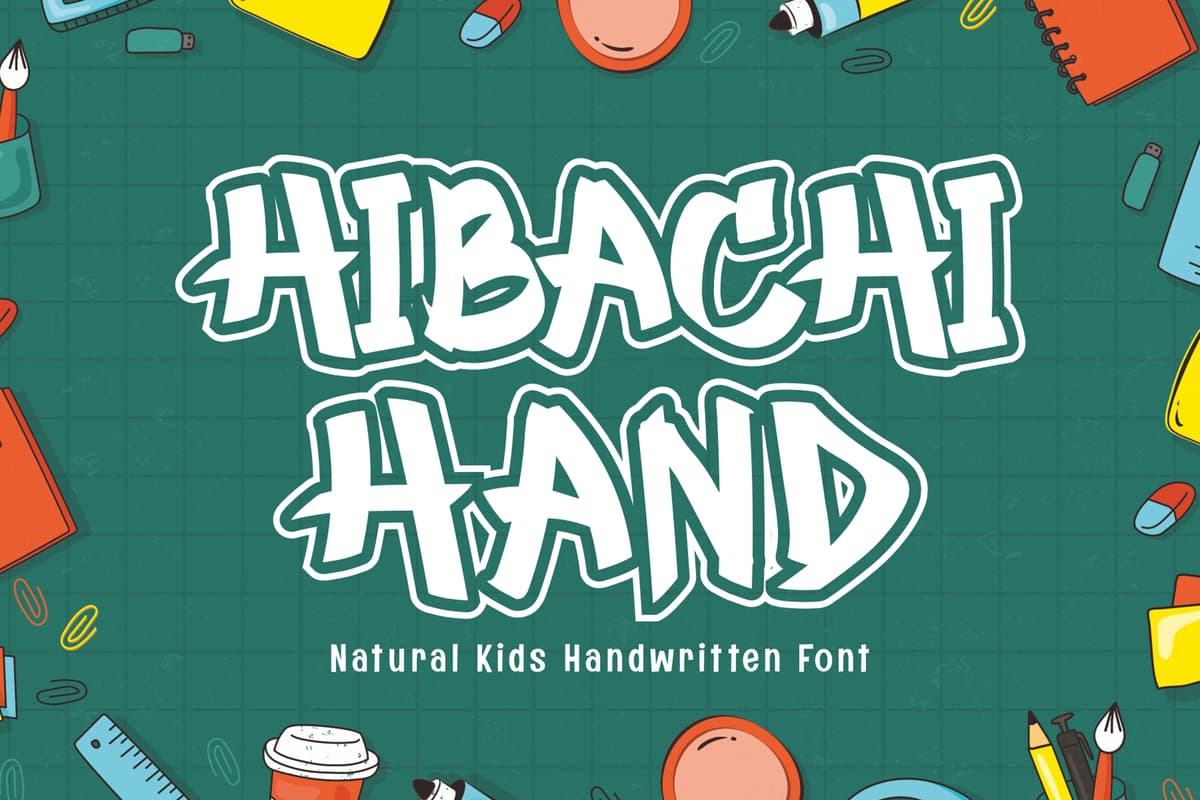
Hibachi Hand
Introducing Hibachi Hand – the Natural Kids Handwritten Font that brings a playful and authentic touch to your designs. Perfect for projects that need a fun and childlike vibe, Hibachi Hand combines the charm of natural handwriting with a whimsical style to create a font that is both endearing and versatile.